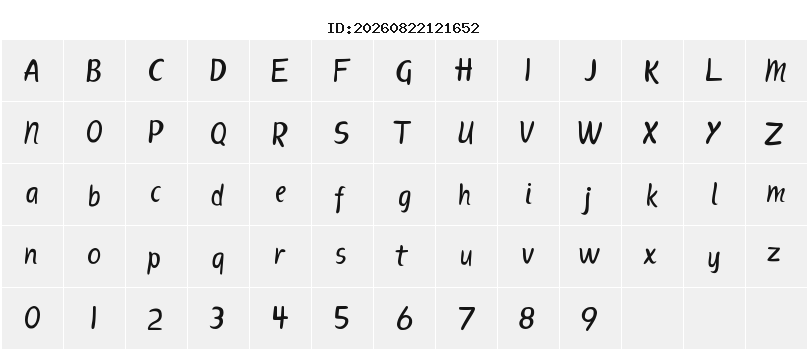
ScriptME 3 Preview
• Font Name: ScriptME 3
• Full Font Name: ScriptME 3
About ScriptME 3.ttf
ScriptME 3.ttf is a modern, elegant sans-serif font designed for ultimate readability and visual harmony. Perfect for branding, headlines, web design, and print materials.